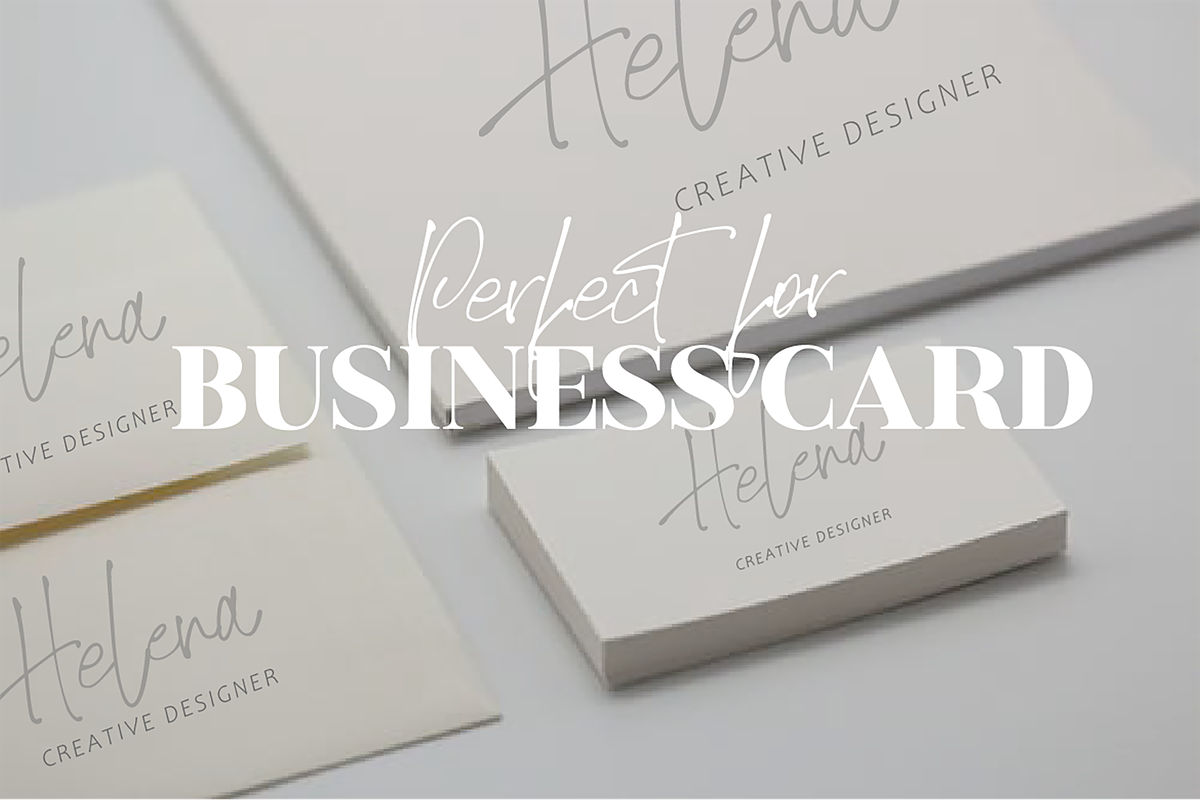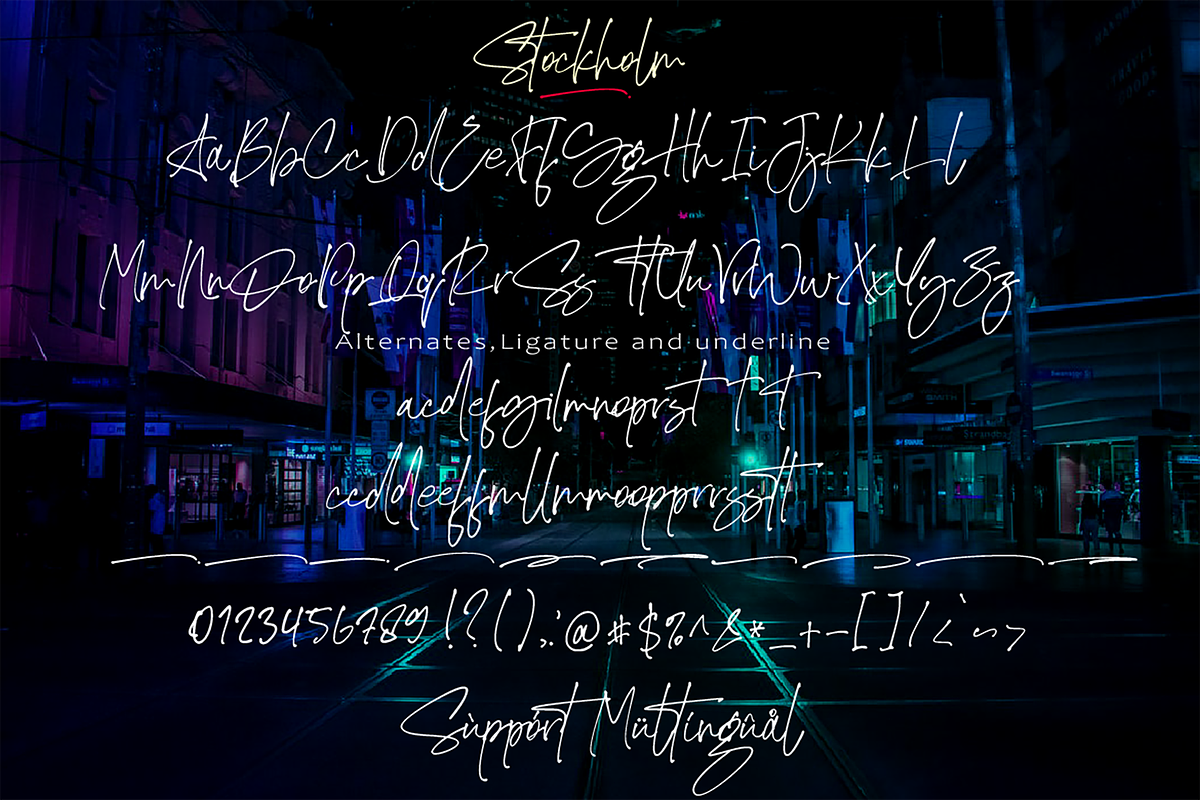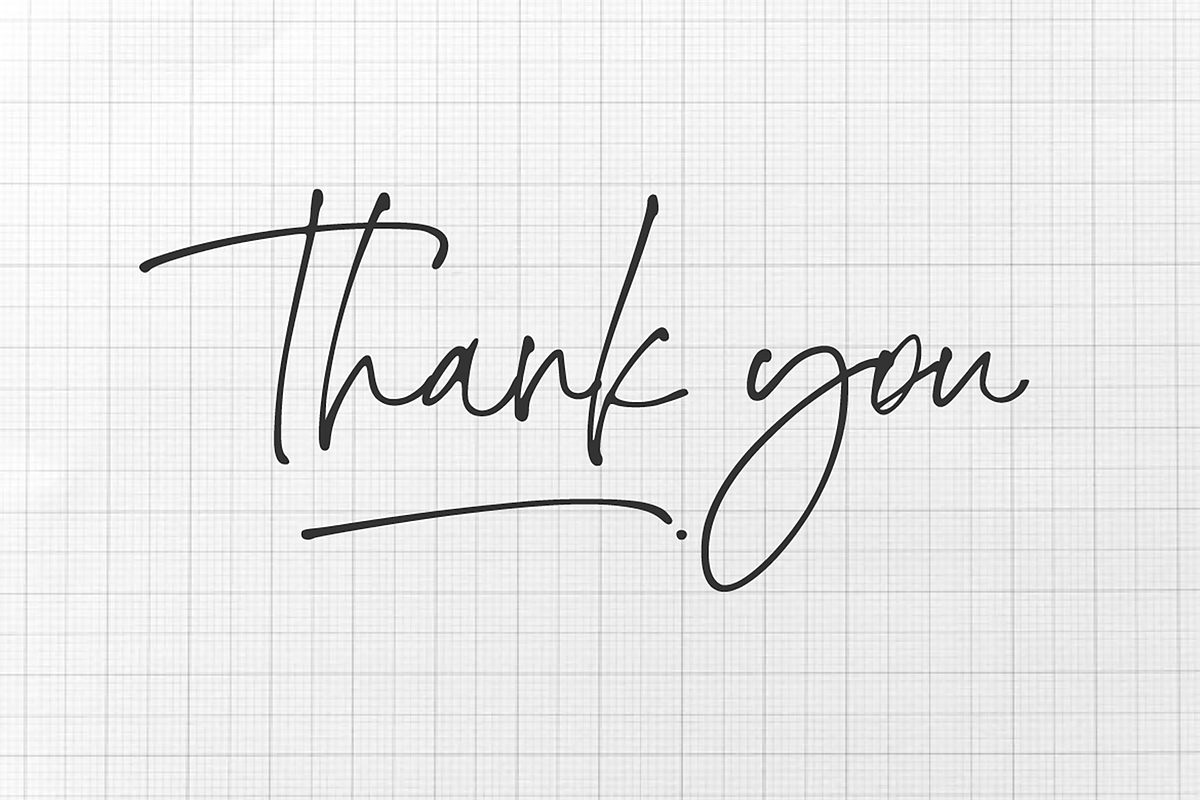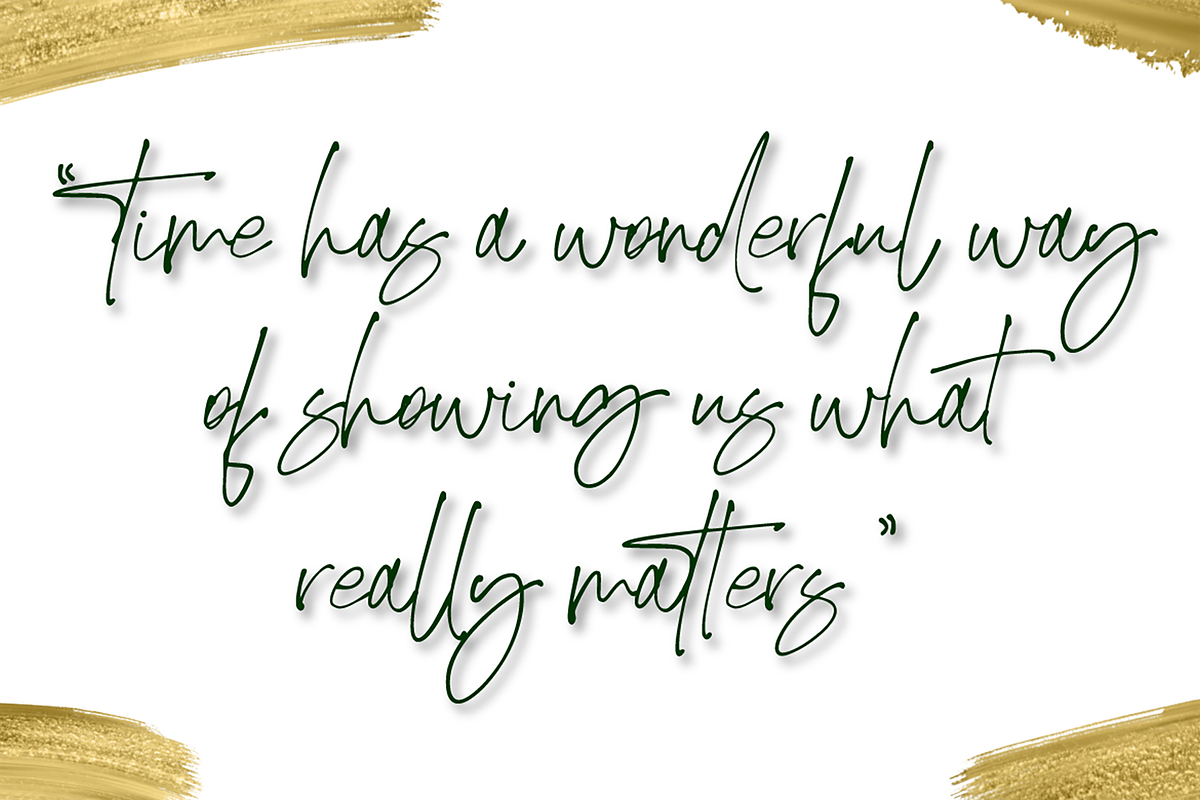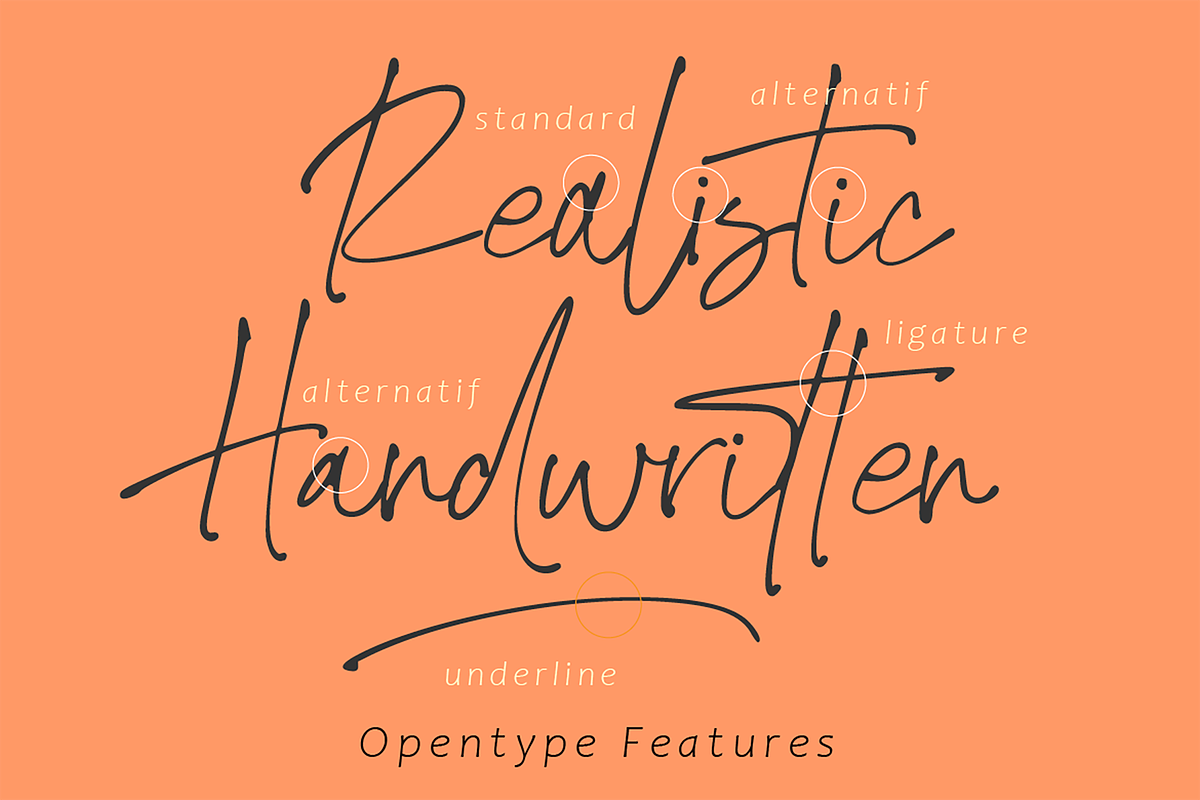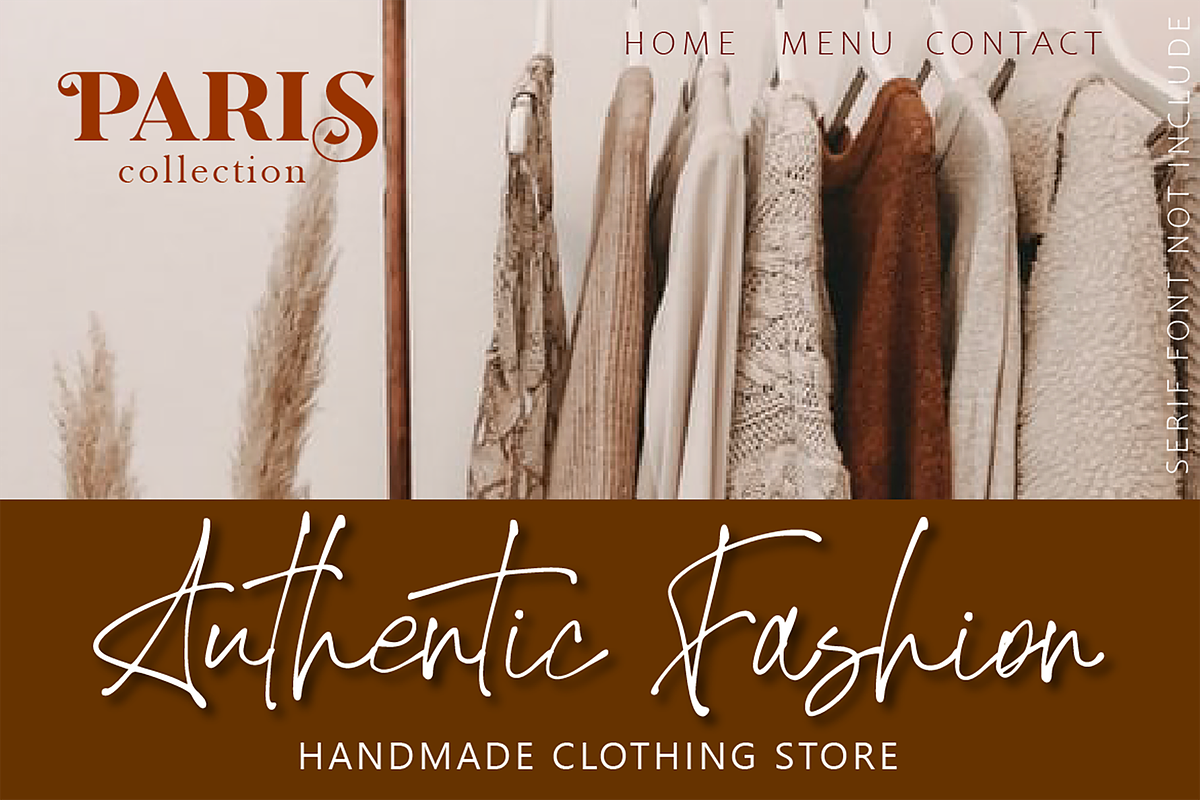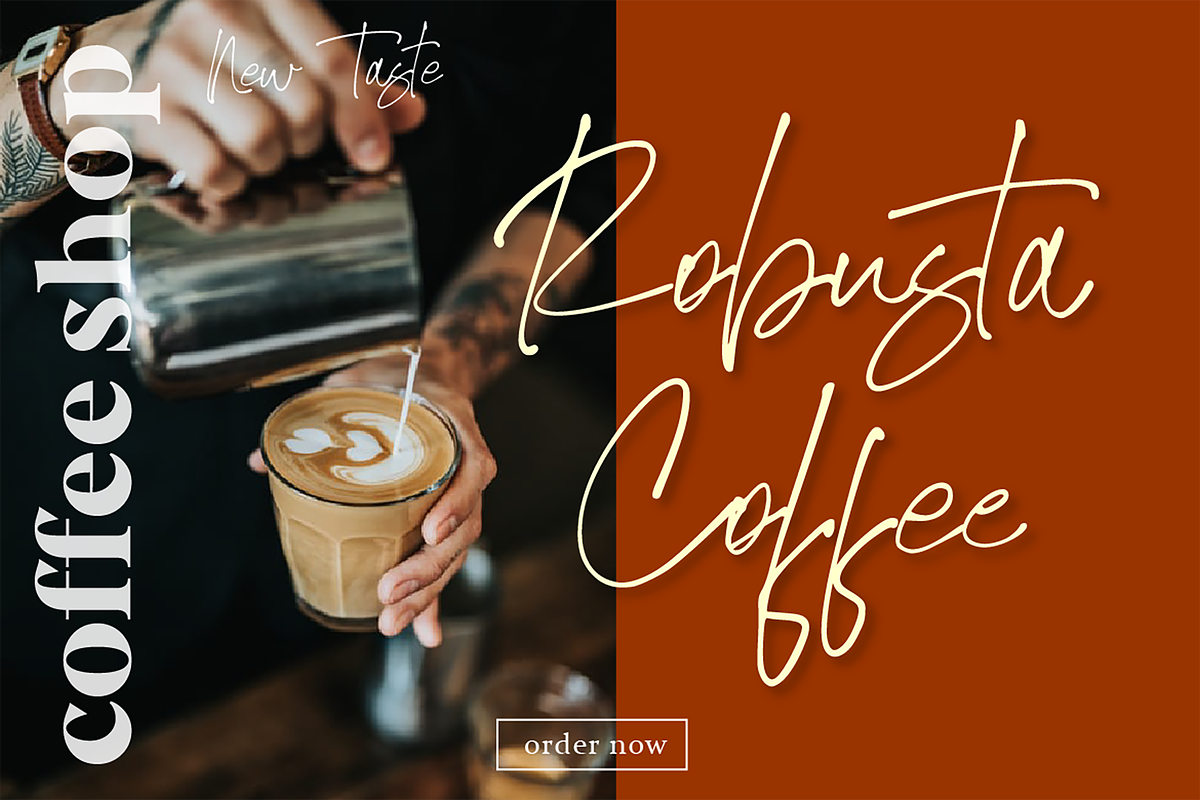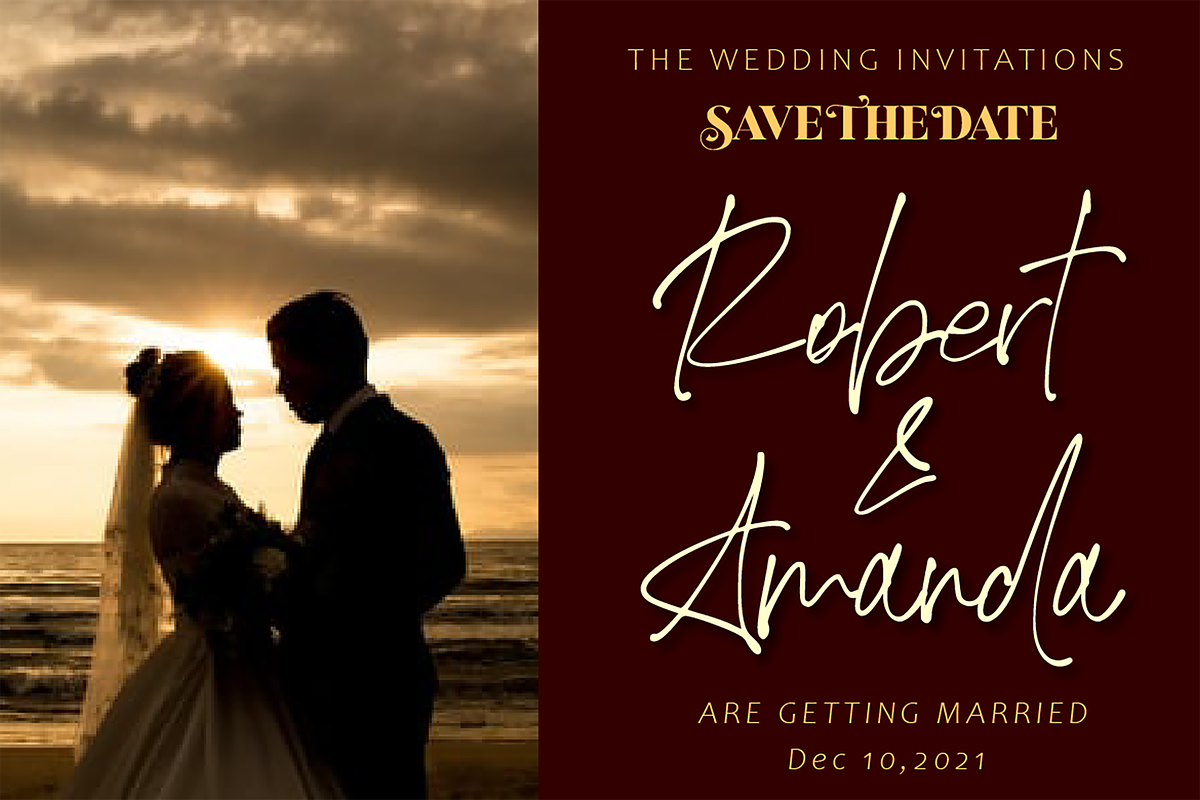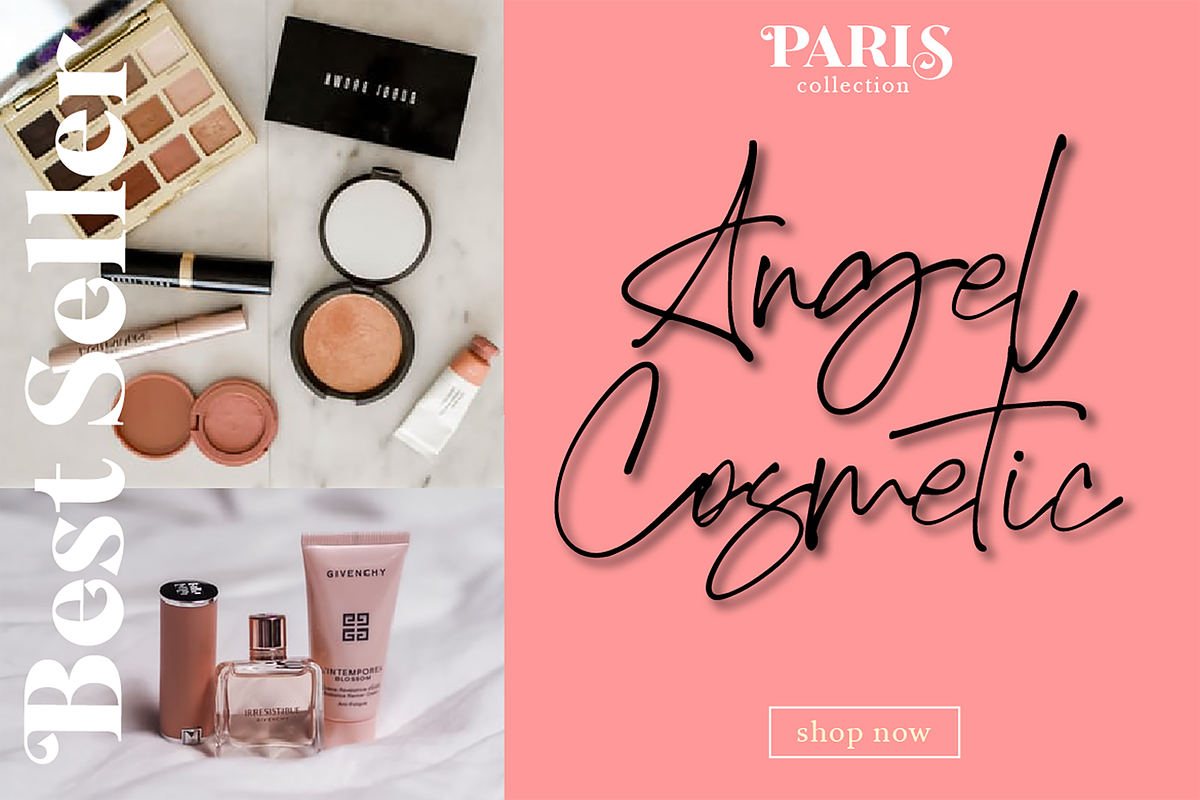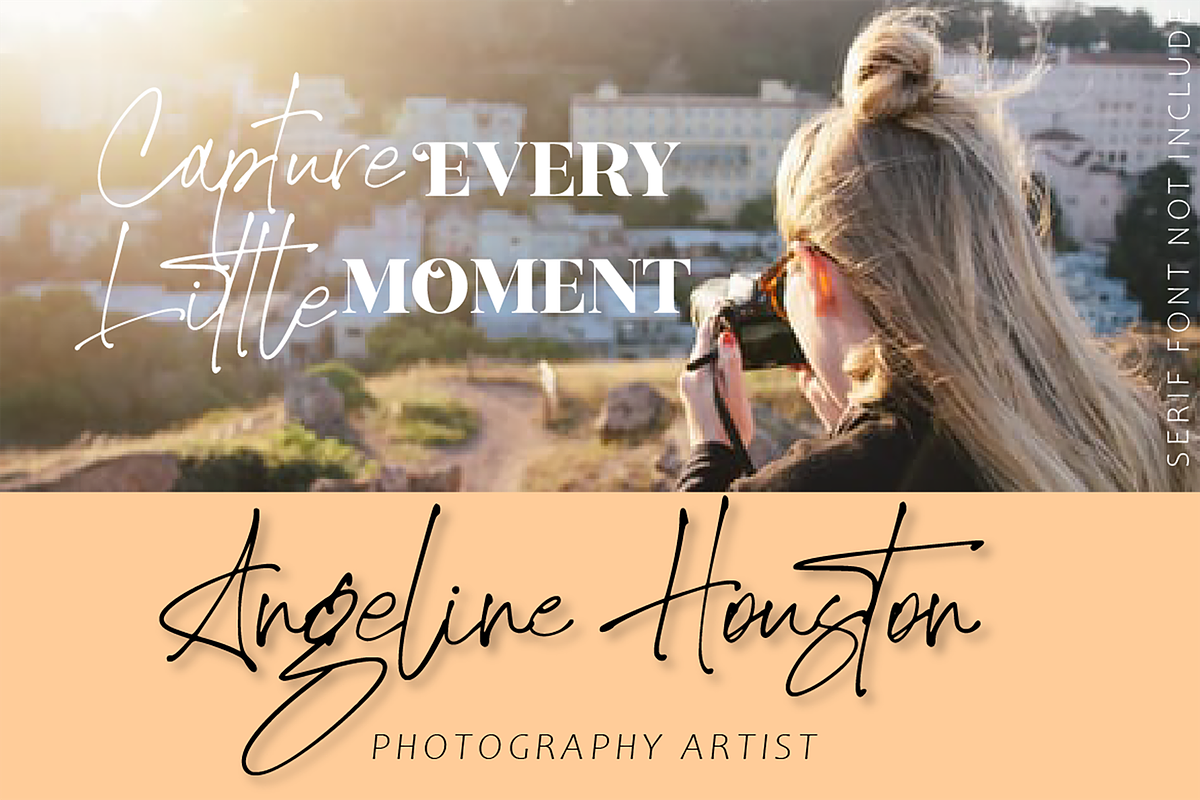
Stockholm
Introducing
Stockholm font is charming and elegant handwritten with a quick stroke pen effect. This font was created to look as close to a natural handwritten script, as possible by including lowercase alternates, ligature and underlines. Perfect for any awesome projects that need hand writing taste.
Comes with regular and italic. With built in Opentype features, this script comes to life as if you were writing it yourself.